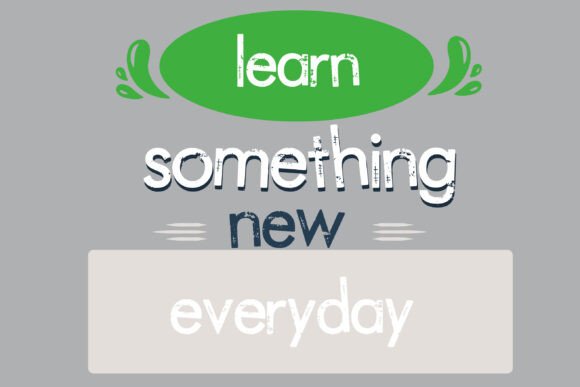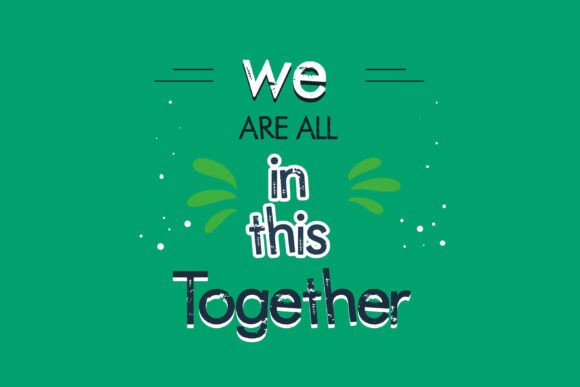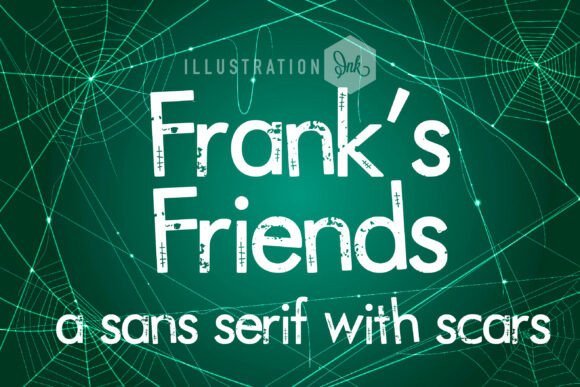
Introduction to Frank’s Friends Distressed Font
This hand-crafted, bouncy sans serif sports a lot of grunge and scars throughout.
A hand-crafted font is a font that is designed to look like it was written by hand It is often used for invitations, greeting cards, and other items.
Key Features of Frank’s Friends Distressed Font
Why Choose Frank’s Friends Distressed Font?